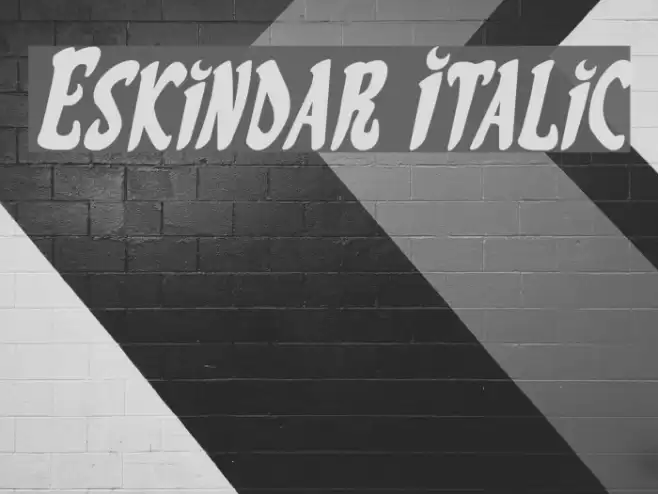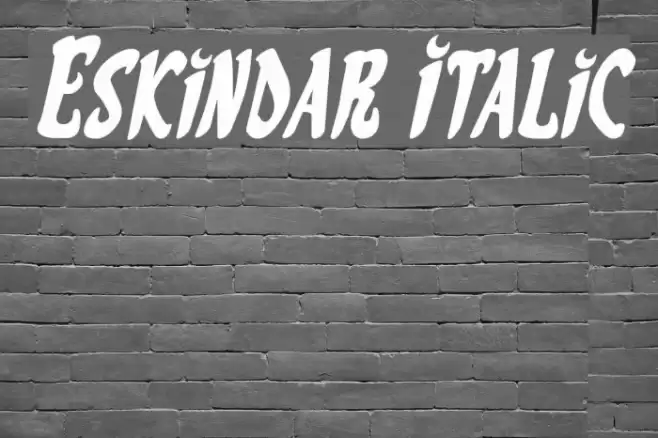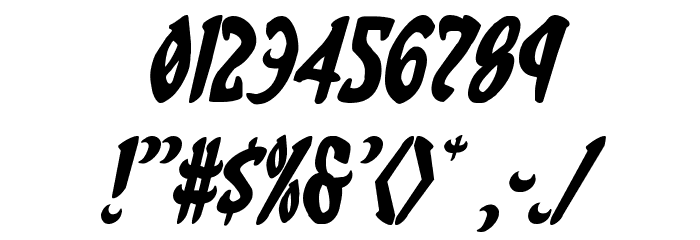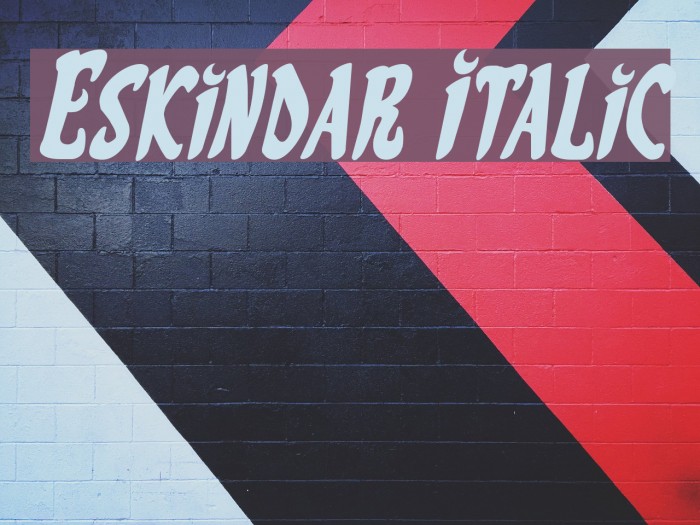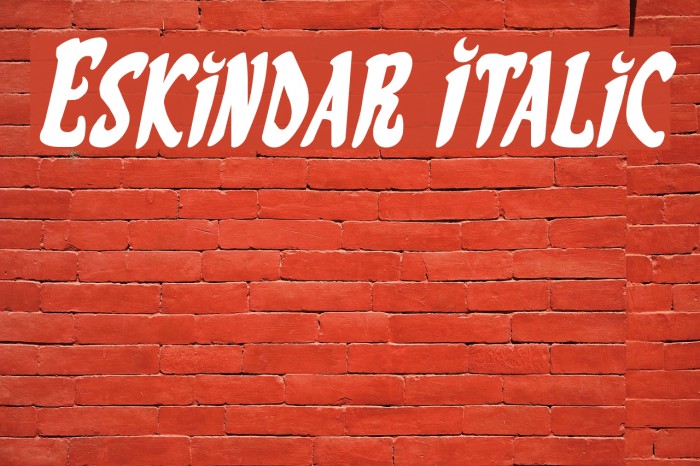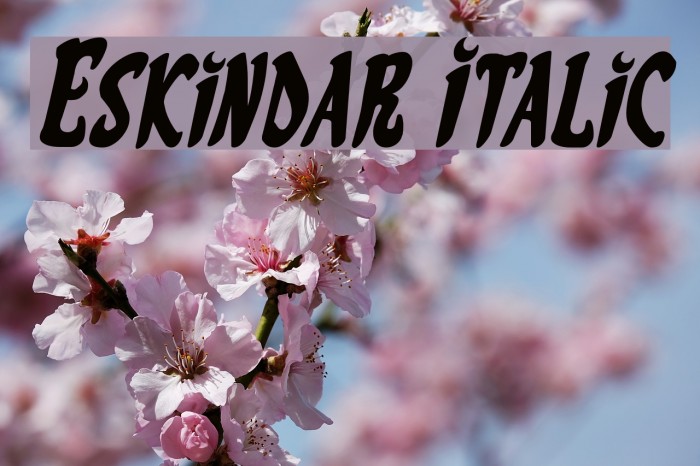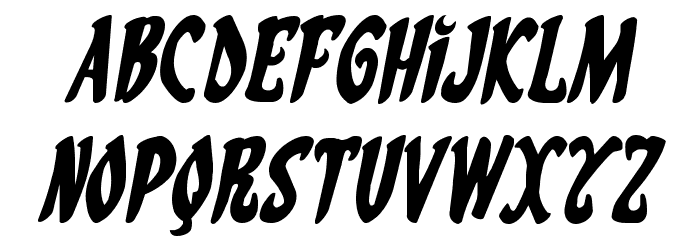
Eskindar Italic Font
Eskindar Italic Description
This font features a bold and dynamic italic style with a strong presence. The characters are designed with a distinctive slant, giving them a sense of movement and energy. The strokes are thick and consistent, providing a robust and impactful appearance. The uppercase and lowercase letters maintain a cohesive look, while the numerals and special characters are crafted to match the overall aesthetic. This font is ideal for projects that require a bold statement and a touch of flair.
A bold, dynamic italic font with strong, thick strokes and a sense of movement from Uncategorized fonts.
- Proposed Projects: Perfect for headlines, posters, branding, and any design needing a bold, energetic touch.